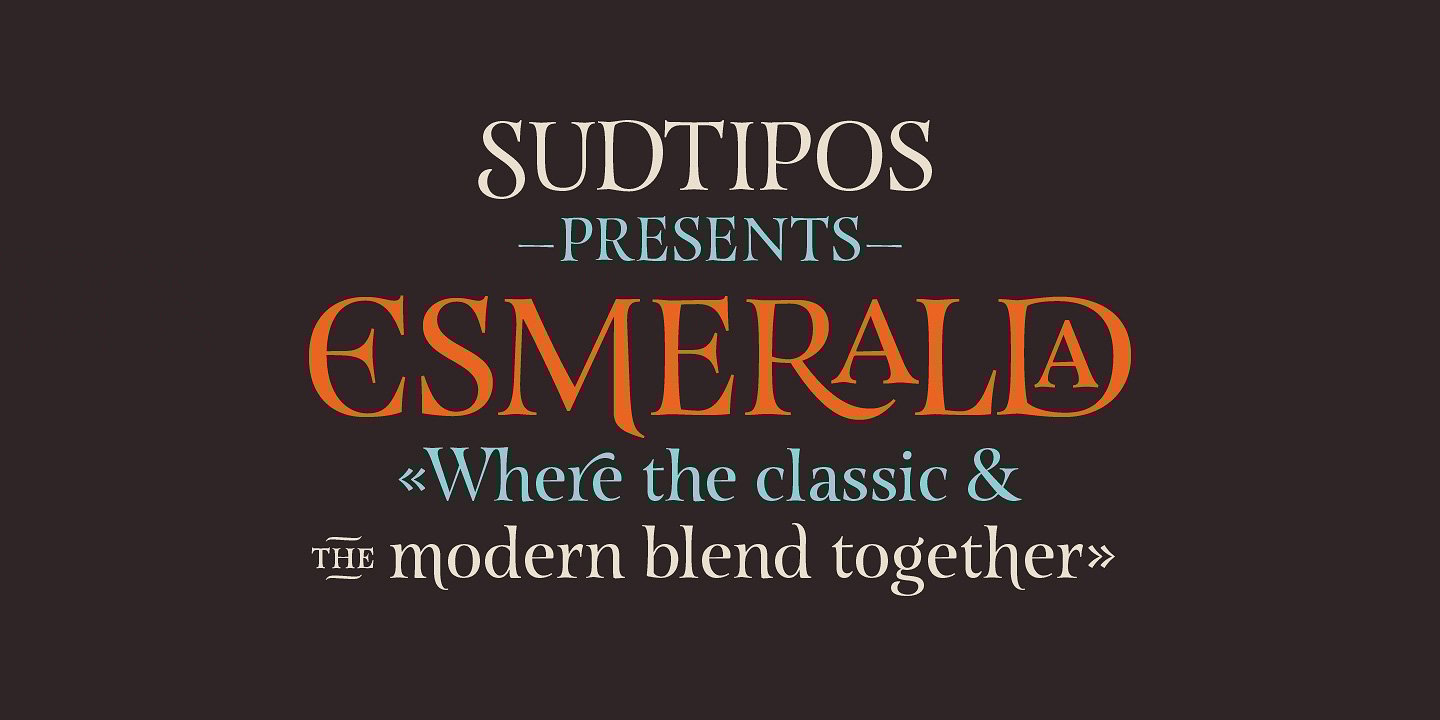
Esmeralda Pro Font is perfect for precious jewelry advertising, emerald gemstone branding, luxury Colombian coffee packaging, elegant Latin American cultural materials, upscale tropical resort signage, premium emerald mining company logos, sophisticated dance studio identities, and exquisite design projects that require radiant typography with emerald brilliance character and Latin elegance sophistication.
This Esmeralda Pro Font is exciting because it captures the luminous beauty and precious allure of emerald gemstones with sparkling letterforms that seem to shimmer with green fire, featuring brilliant character construction that reflects the captivating nature of emeralds while maintaining exceptional readability for luxury applications and precious communications.
The Esmeralda Pro Font family includes brilliant weights with gemstone styling, complete character sets with radiant uppercase and lowercase letters, precious numerals, sparkling punctuation, and emerald symbols that provide comprehensive typography solutions for luxury jewelry and Latin cultural design projects requiring authentic gemstone aesthetics and precious appeal.
Perfect for creating dazzling luxury communications and precious gemstone brand identities, Esmeralda Pro Font Free Download delivers the brilliant typography that transforms text into radiant expressions of emerald beauty and Latin cultural richness. This distinctive typeface embodies the essence of precious emerald stones and Latin American elegance, making it essential for projects celebrating gemstone luxury, Colombian heritage, precious jewelry, and any design requiring brilliant character with authentic emerald sophistication and timeless precious appeal that captures the mesmerizing allure of emerald fire.